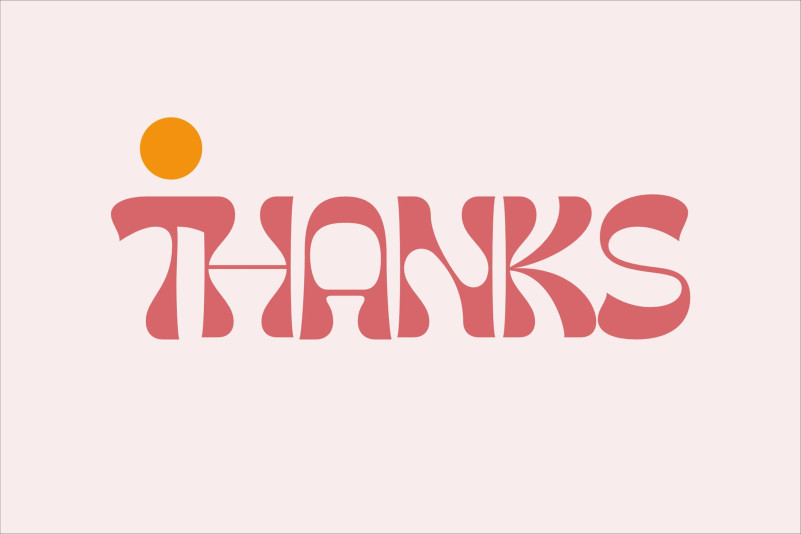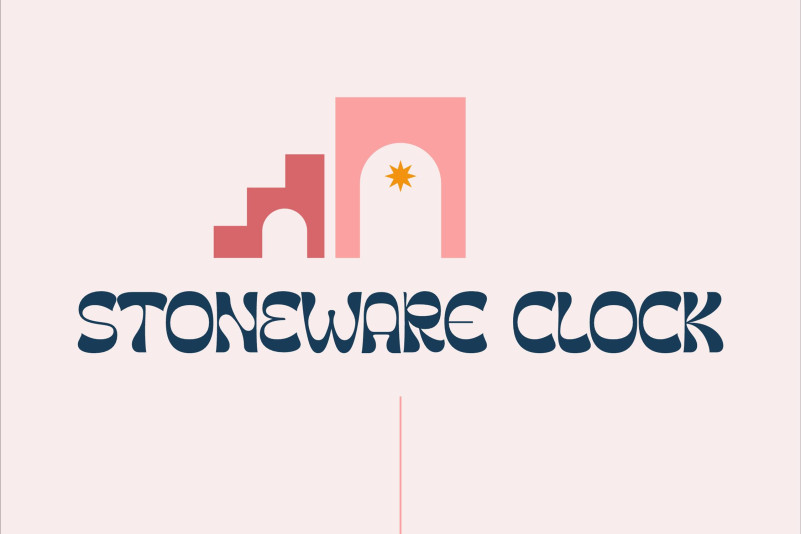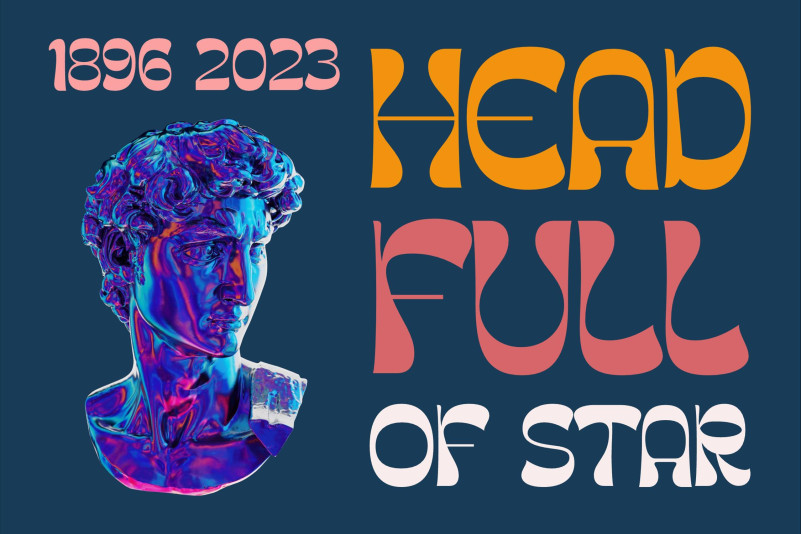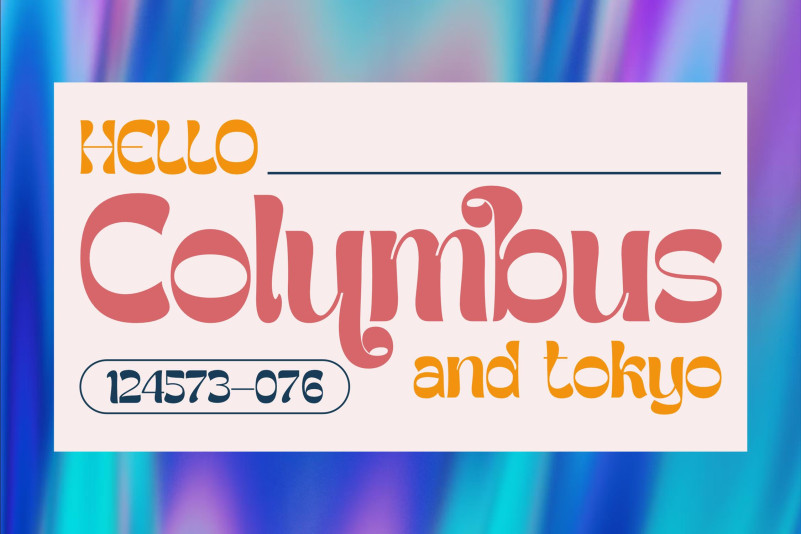
Groothe Font
Groothe Display Font is a serif modern and classic typeface that has own unique style & modern look. This typeface is perfect for an elegant & luxury logo, book or movie title design, fashion brand, magazine, clothes, lettering, quotes, and so much more.